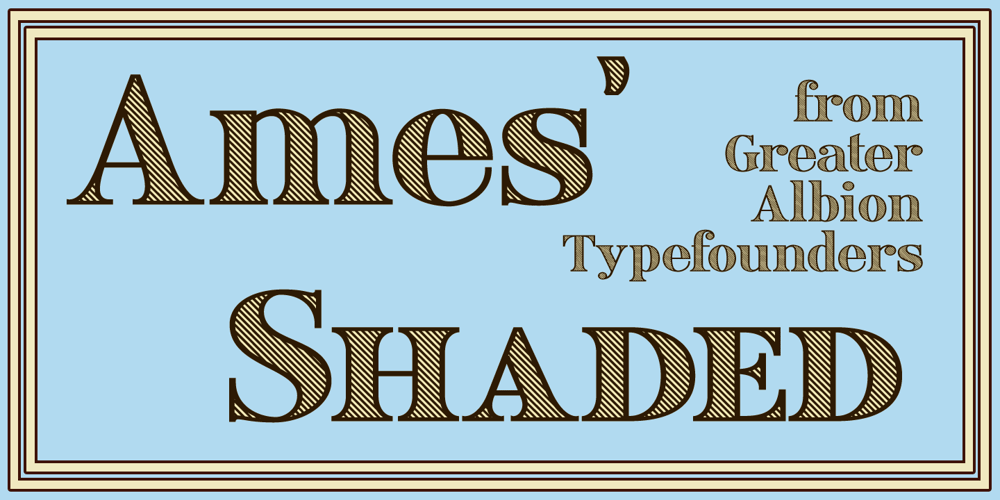
Ames’ Shaded Font Family was designed by Paul James Lloyd and published by Greater Albion Typefounders. Ames’ Shaded contains 1 styles and family package options. Ames’ Shaded is one of three display typefaces designed to complement the Ames’ Roman and Ames’ Text typeface families. Ames’ Shaded has that semi-industrial feel that somehow is evoked by diagonal cross-hatching. Delightful for use on its own of with the families mentioned. A delightful introduction to the Ames’ ‘Super’ typeface family.